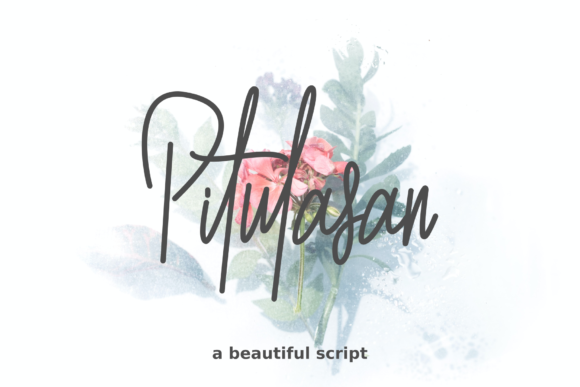
**Pitulasan: A Script Font for Unforgettable Celebrations**
Prepare to be captivated by Pitulasan, an exquisite script font that will elevate your wedding invitations, cards, and designs to unparalleled heights. Every stroke of this flowing handwritten font exudes elegance and sophistication, leaving an unforgettable impression on your guests.
Indulge in the joy of endless possibilities with Pitulasan. Its adaptability transcends the boundaries of creativity, allowing you to effortlessly craft invitations that reflect your unique style and vision. Whether you desire a touch of timeless charm or a burst of contemporary flair, Pitulasan seamlessly adapts to your every desire.
The magic of Pitulasan lies in its meticulous PUA encoding, granting you effortless access to a world of glyphs and swashes. Unleash your imagination and weave intricate designs that will mesmerize and captivate.
With Pitulasan, every word becomes a masterpiece, a testament to your impeccable taste and attention to detail. Let this exceptional font guide you as you create memories that will be cherished for a lifetime. Join the countless others who have fallen head over heels for the allure of Pitulasan and experience the transformative power of a truly unforgettable font.